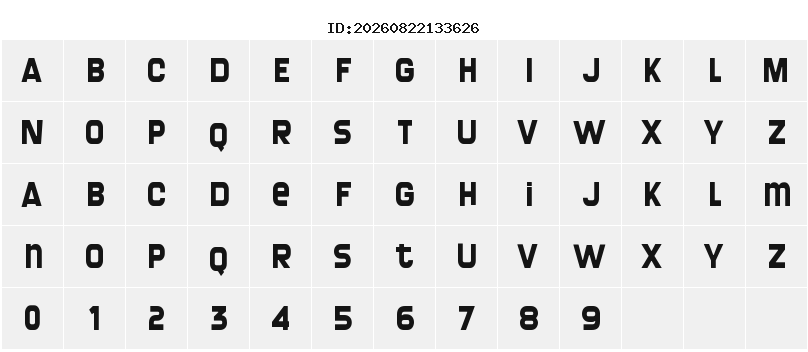
Screengem Preview
• Font Name: Screengem
• Full Font Name: Screengem
• Designer: Ray Larabie
About Screengem.ttf
Screengem.ttf is a modern, elegant sans-serif font designed for ultimate readability and visual harmony. Perfect for branding, headlines, web design, and print materials.